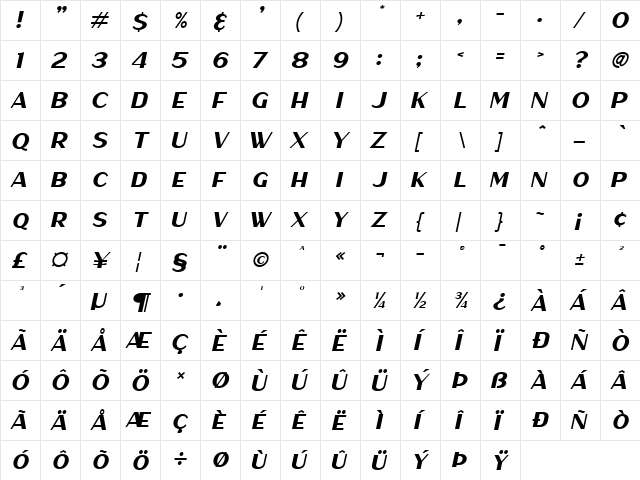
Haarlem Sans Italic
Design Context for Haarlem Sans Typeface
Haarlem Sans offers clean, dependable letterforms without strong stylistic allegiance, making it a practical choice for designers who need flexibility. The slanted form adds forward momentum and visual energy.
Pro Tip: Try Haarlem Sans for annotation and caption copy alongside an upright companion — the contrast in angle creates a dynamic but ordered typographic system.